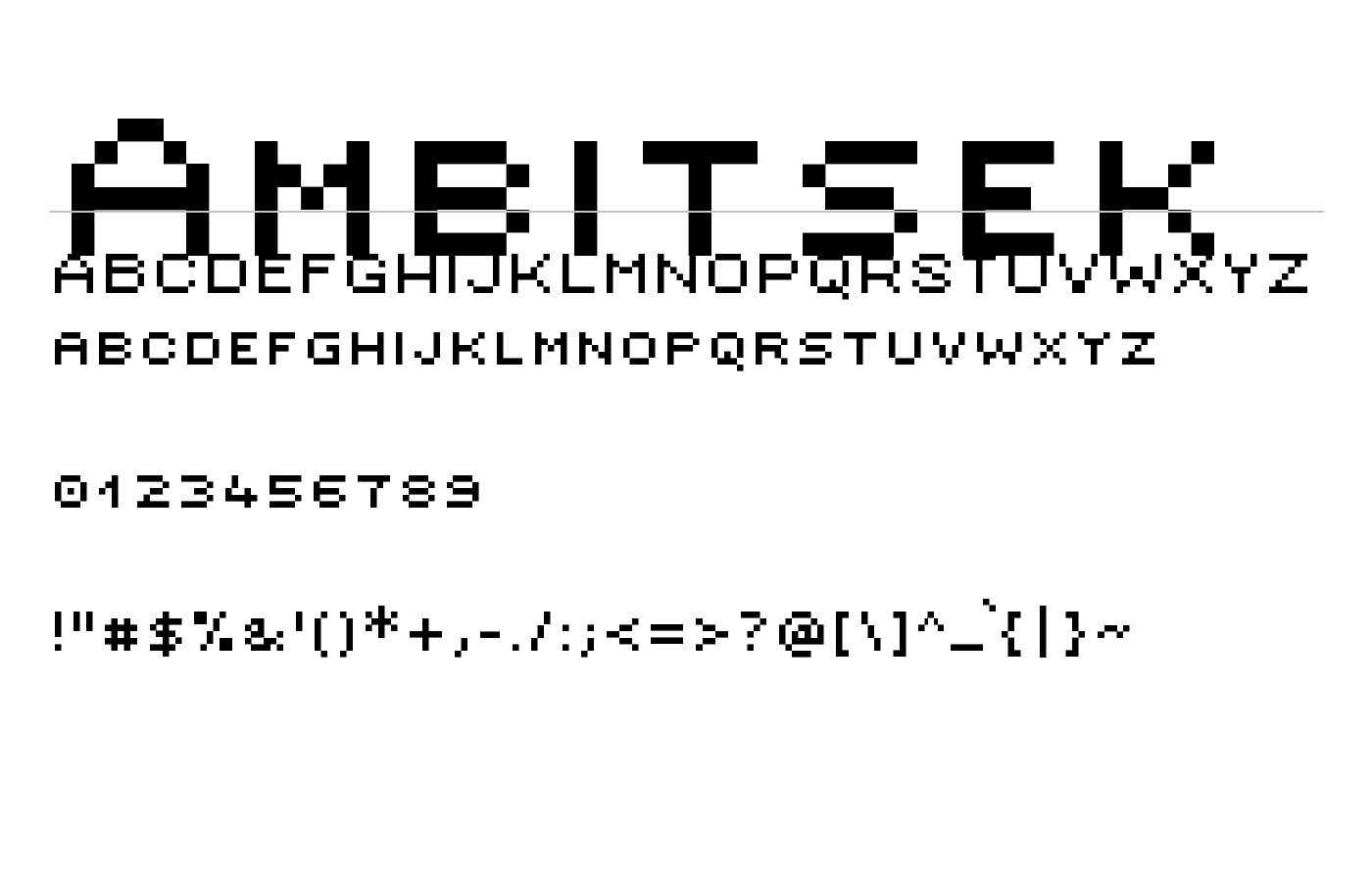
Ambitsek is a pixel-based, sans serif font characterized by its blocky, geometric letterforms and consistent stroke weight, evoking a retro digital or video game aesthetic. Its monospaced style with clear, square shapes makes it ideal for tech-inspired designs, coding interfaces, or nostalgic projects seeking a vintage digital vibe. This font works especially well for headlines, logos, and digital displays where a bold, distinctive pixel-art look is desired.
Ambitsek Font
About Ambitsek Font